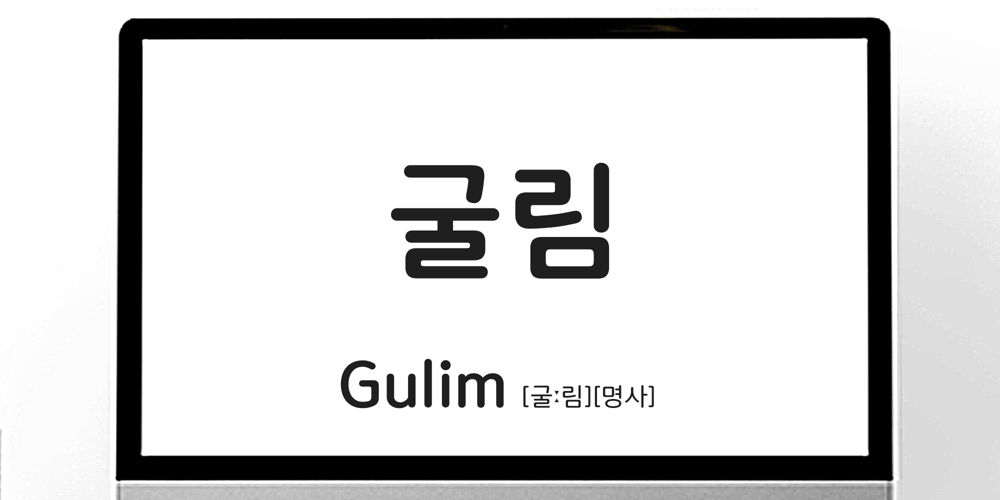
210 Gulim
210 Gulim font
210 Gulim Font Family was designed by Doo-Yul Kwak, Yul Kwak Doo and published by Design210, Korean Fonts. 210 Gulim contains 5 styles and family package options. A round was added to a neat straight line to express a soft sensibility.It is a neat and flexible font using a clean and stable type of module.